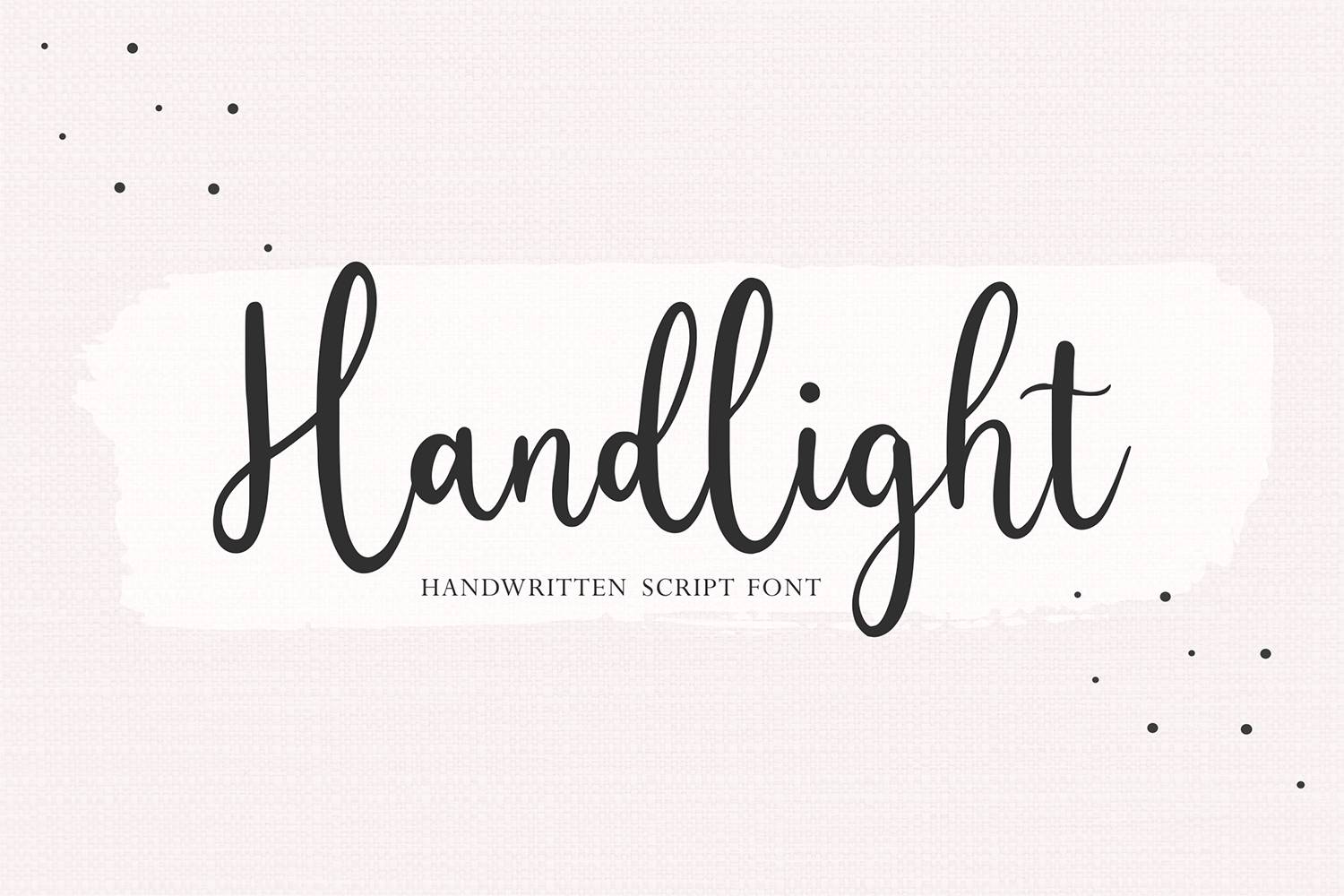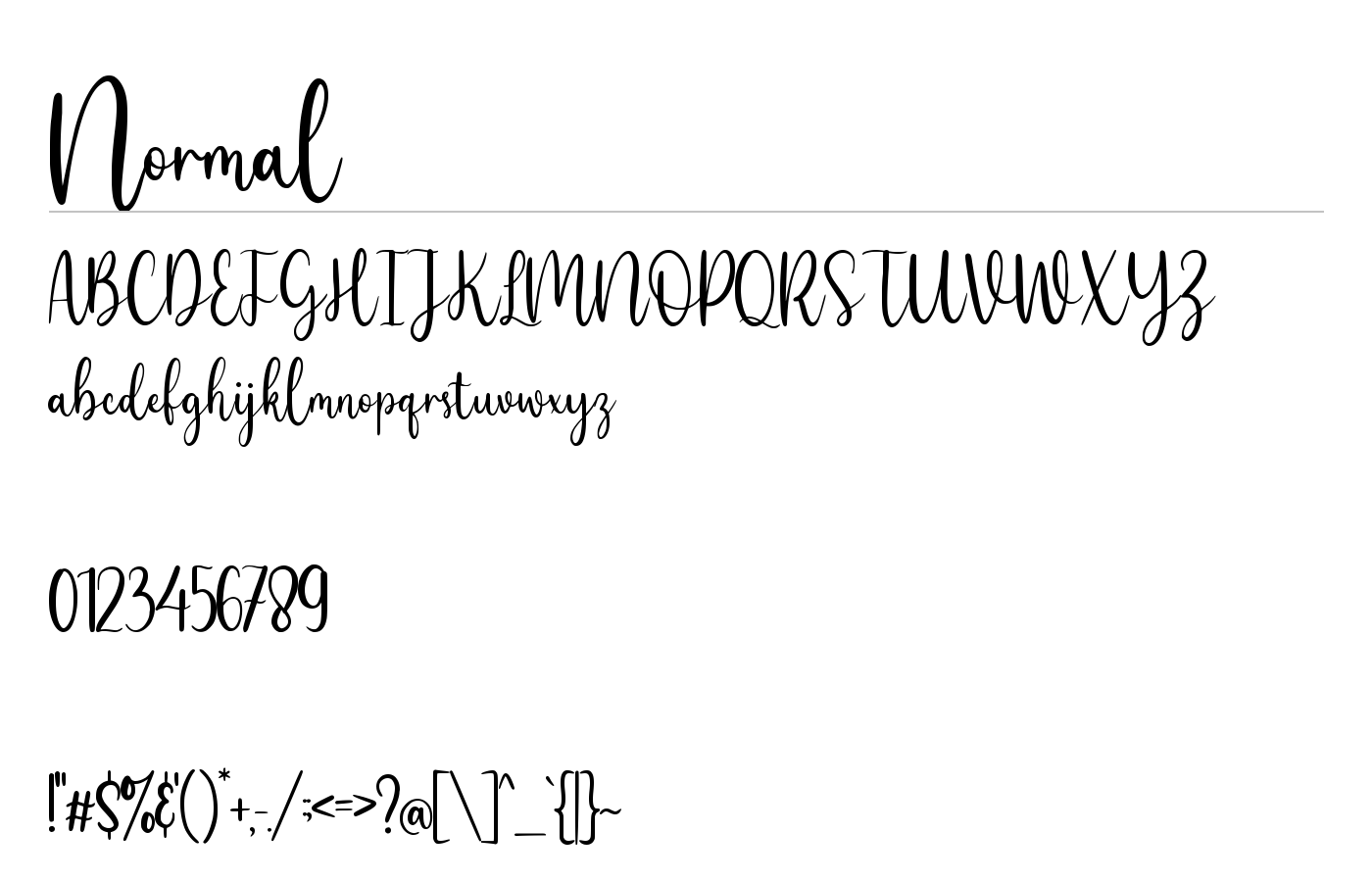
Handlight is a delicate script font with a light weight and elegant, flowing letterforms that give it a handwritten, personal touch. Its tall, slender characters and smooth, consistent strokes create a charming and approachable feel, making it perfect for invitations, branding, and any design needing a friendly yet refined style. This font works especially well in creative projects where a soft, graceful aesthetic is desired.
Handlight Font
About Handlight Font